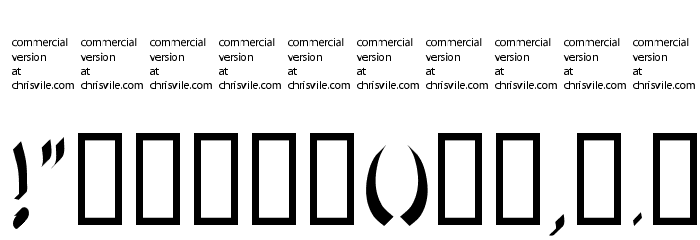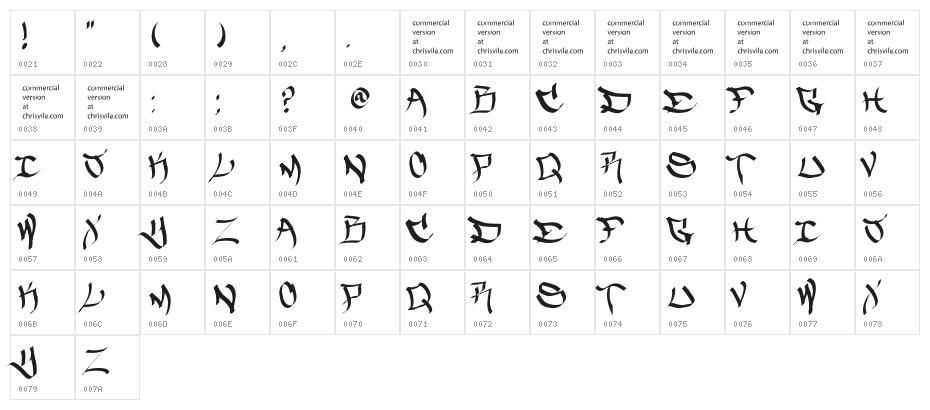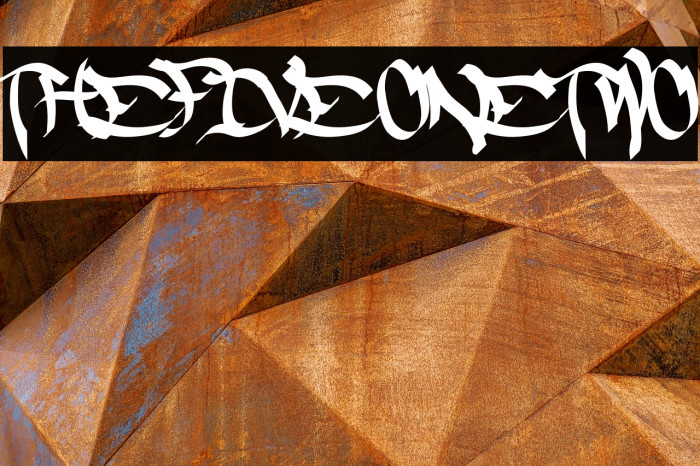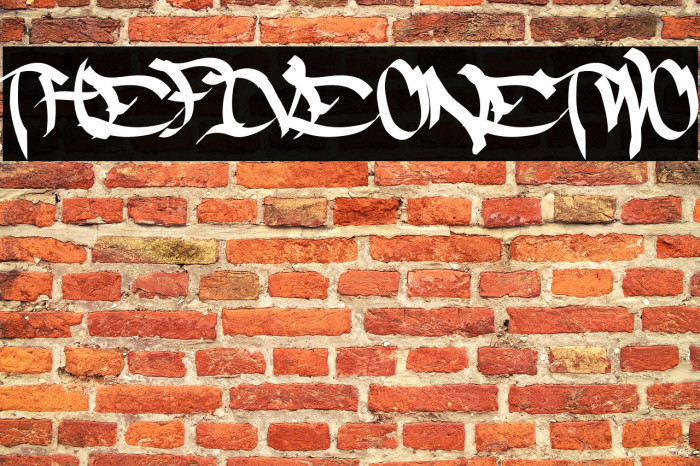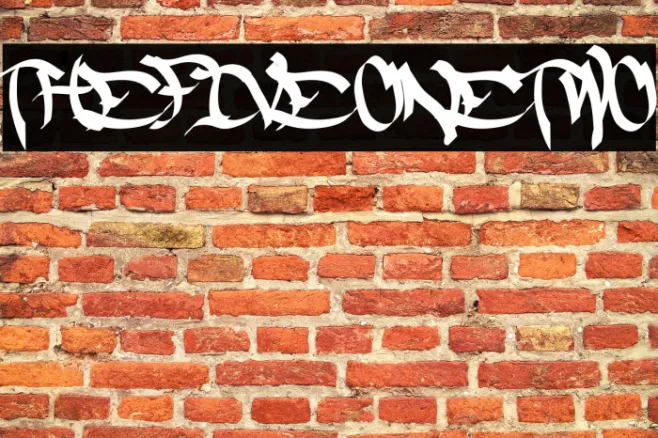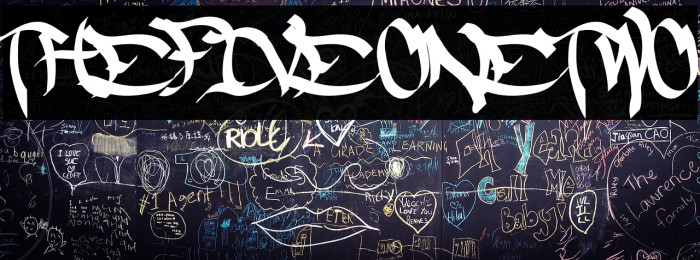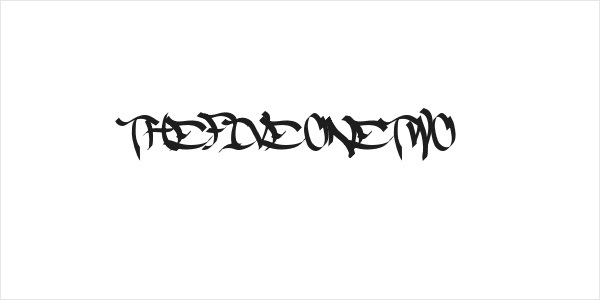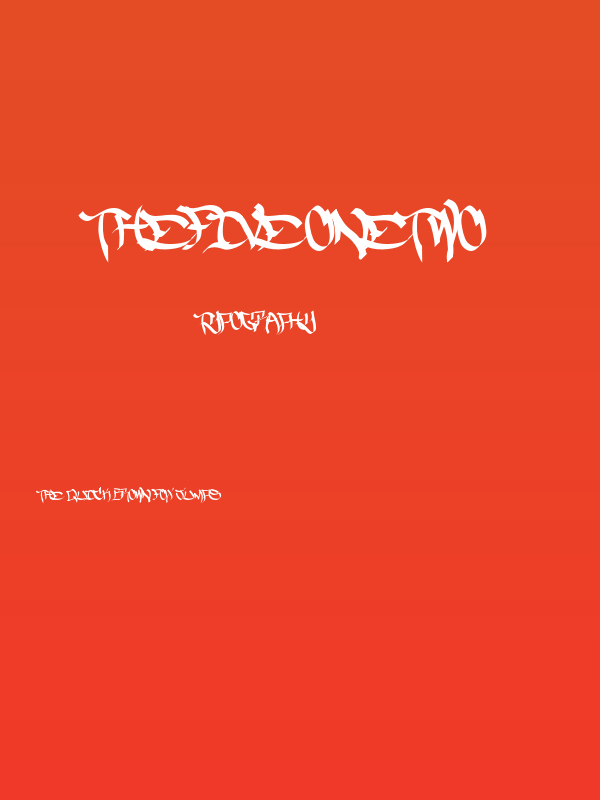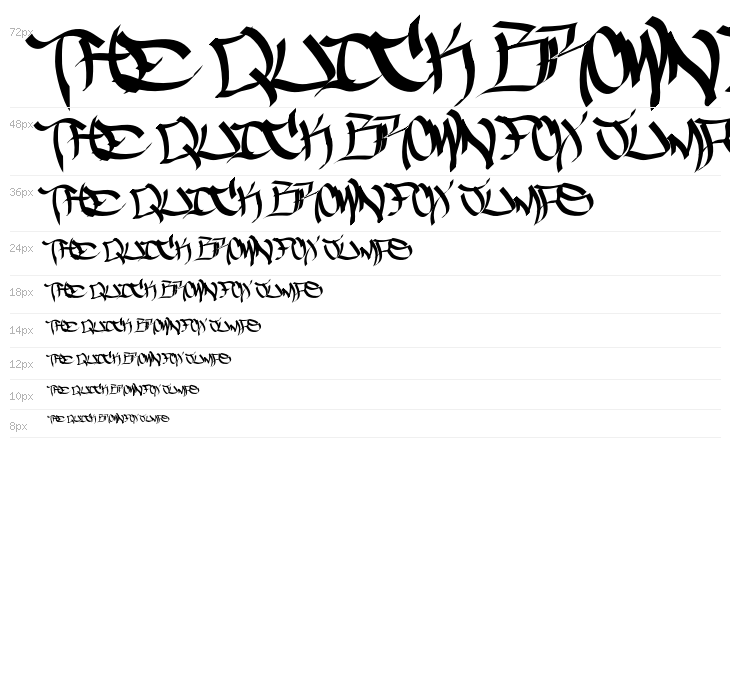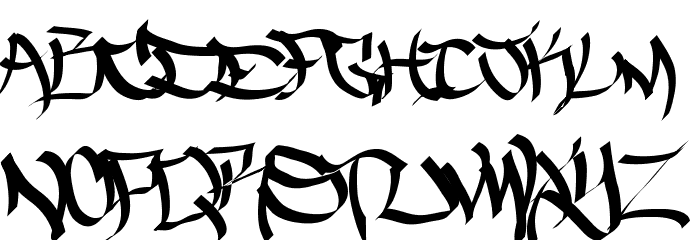
TheFiveOneTwo Font
TheFiveOneTwo Description
This font features a bold and dynamic design with sharp, angular strokes and a graffiti-inspired aesthetic. The characters are highly stylized, with exaggerated curves and pointed edges, creating a sense of movement and energy. The uppercase and lowercase letters maintain a consistent style, emphasizing the font's unique and artistic flair. The numbers and special characters are equally expressive, adding to the overall cohesive look. This font is ideal for projects that require a strong visual impact and a modern, edgy feel.
| Overall Style | Modern, Edgy |
| Proposed Projects | Ideal for street art designs, urban-themed posters, edgy branding, and music album covers. |